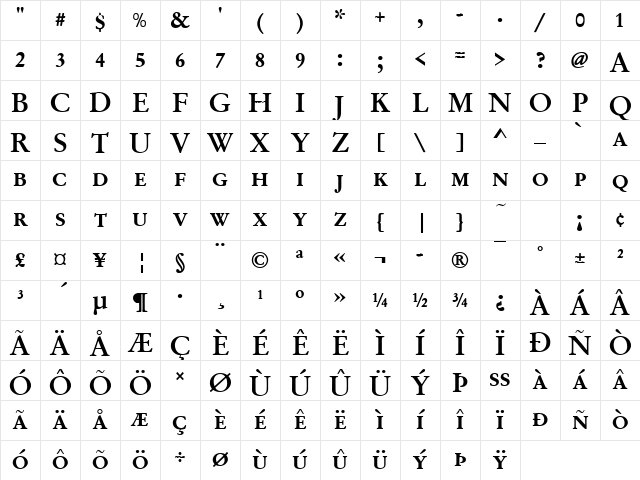
Complete Garamond Becker No2 Discaps Med Regular glyph index. Displaying only characters natively supported by Garamond Becker No2 Discaps Med Regular font.
Garamond Becker No2 Discaps Med is a composed and adaptable typeface that performs quietly and consistently across a wide range of design contexts.